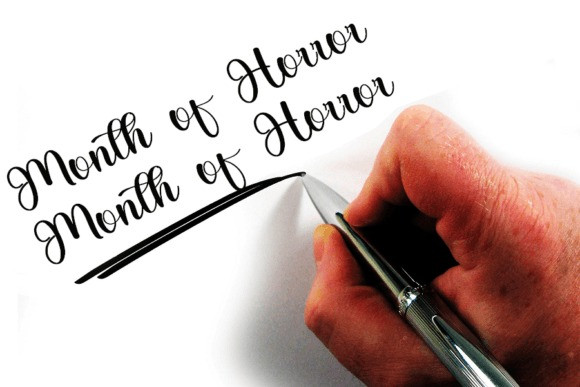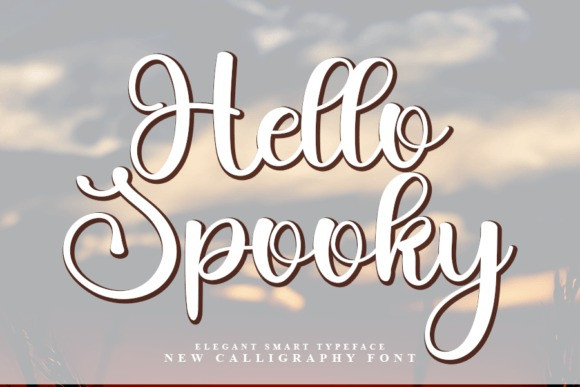
Hello Spooky Font
Hello Spooky Font is a beautiful and refined handwritten font. Classy and modern, it is perfect for logos, branding, invitations, stationery, wedding designs, social media posts, and much more!